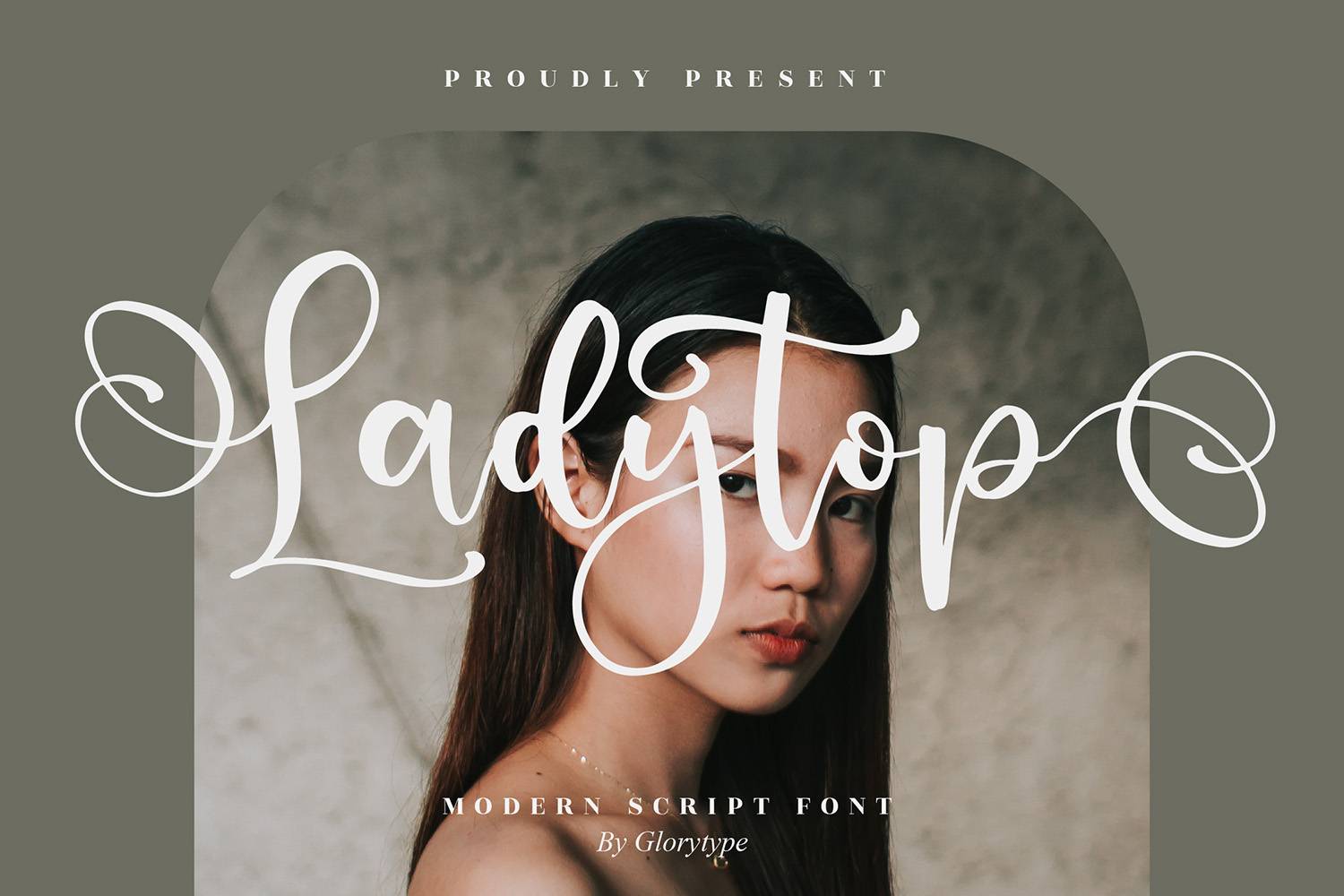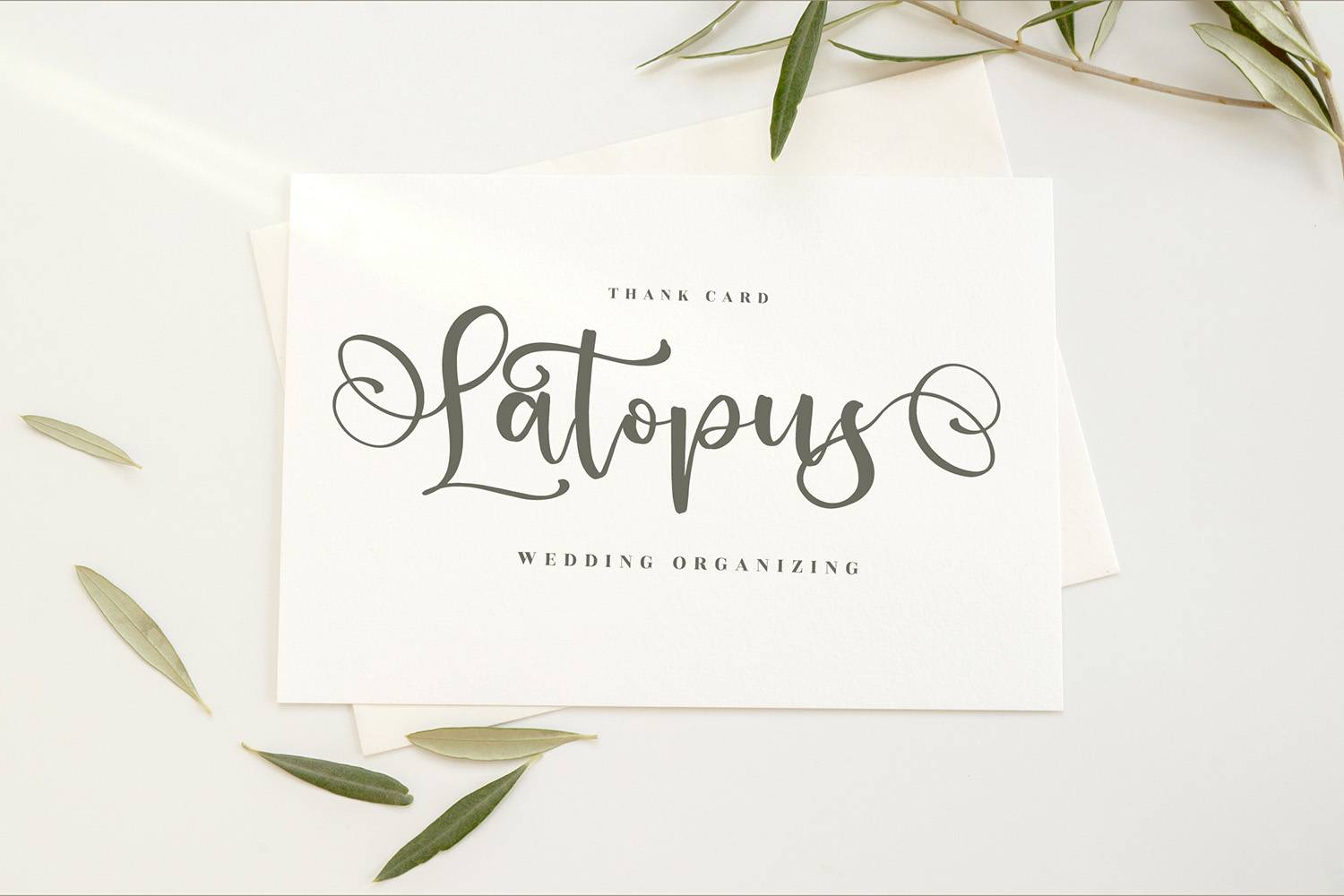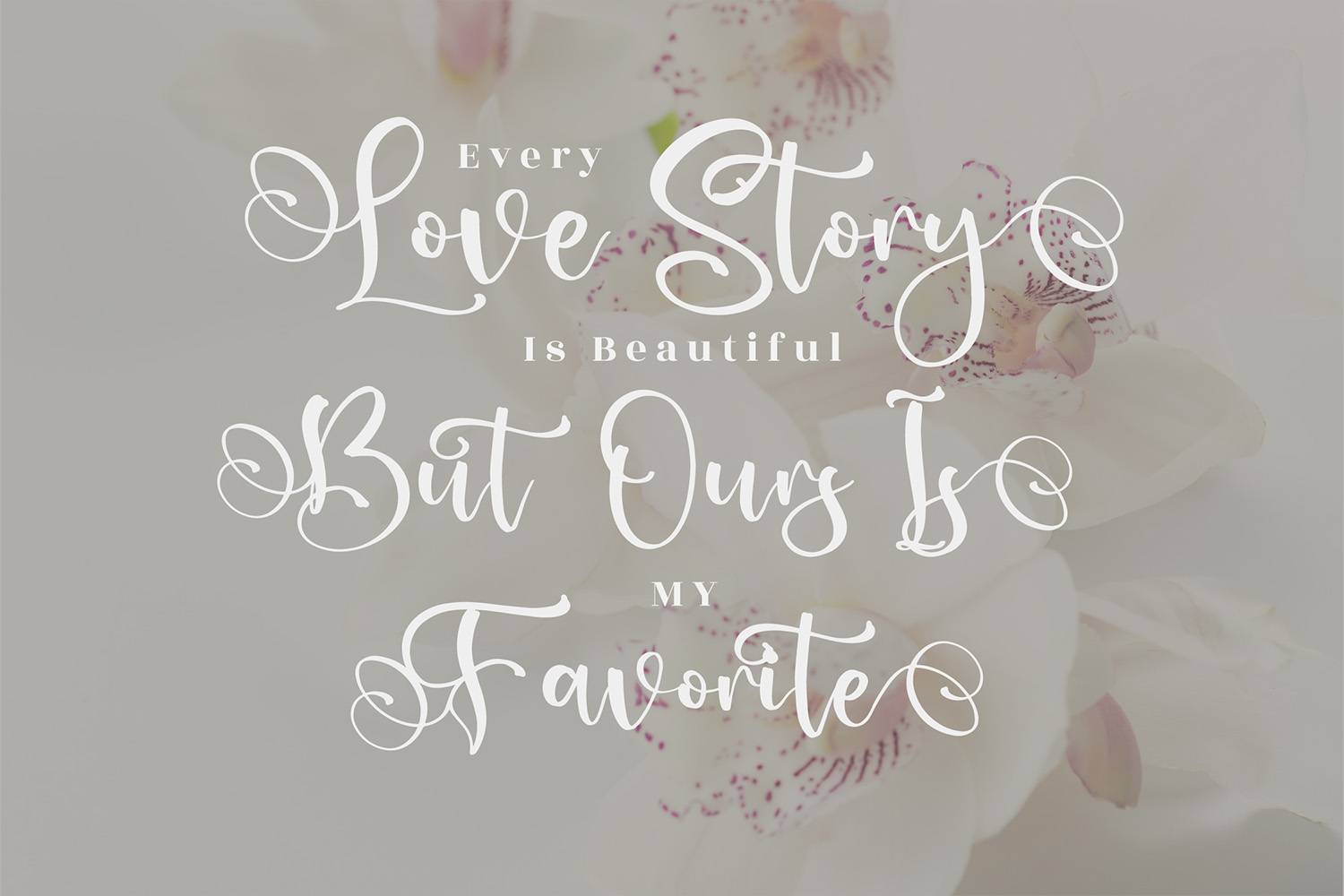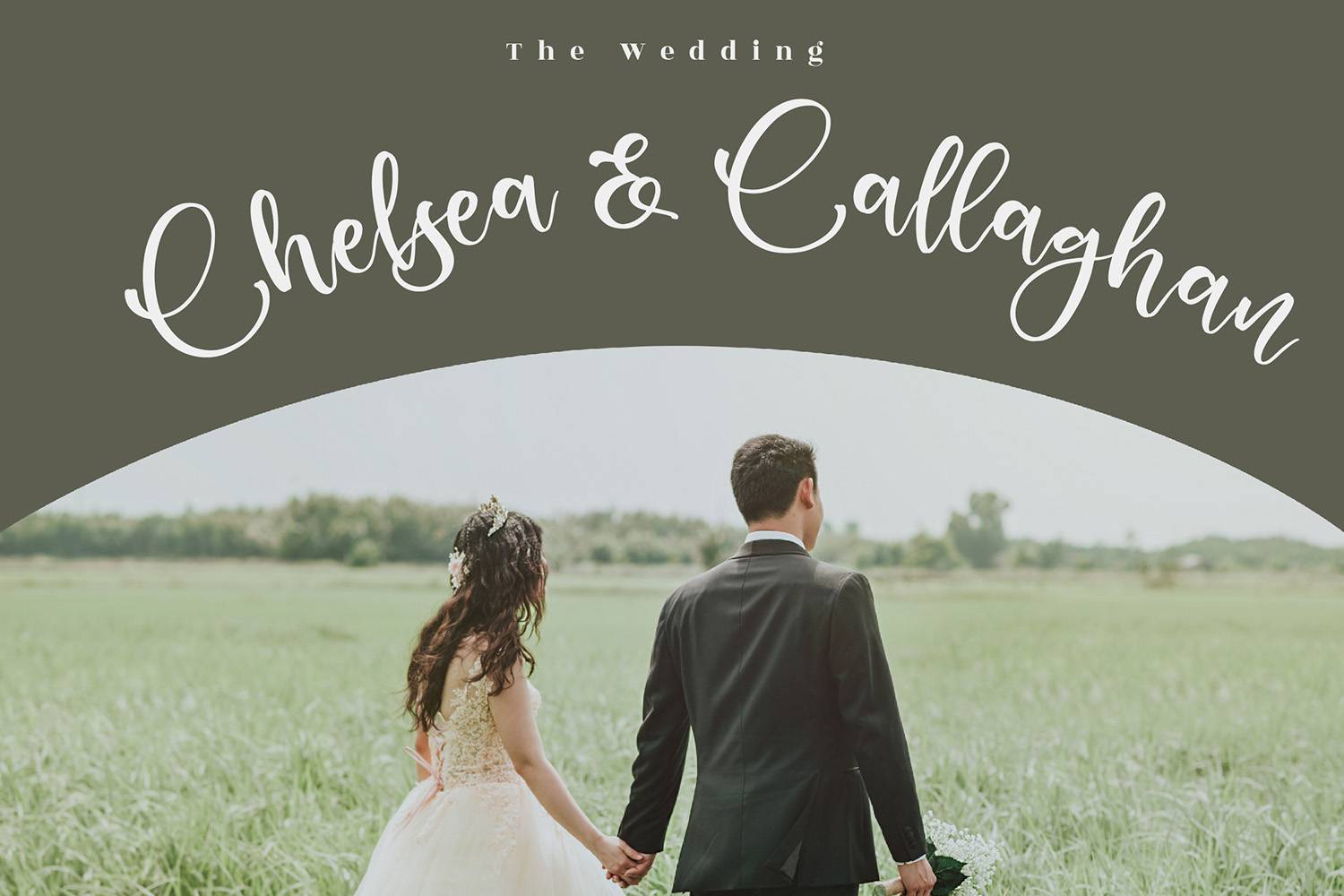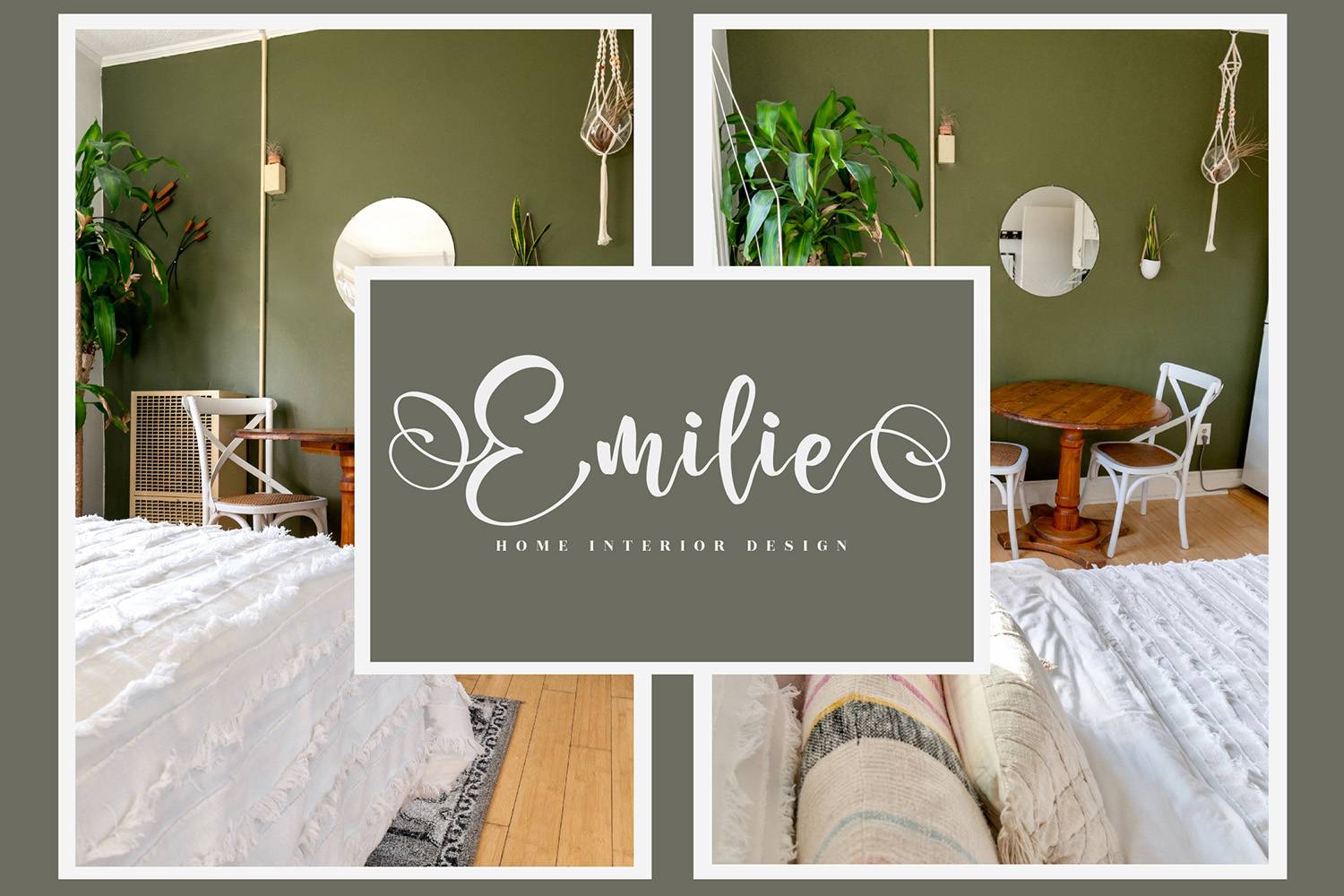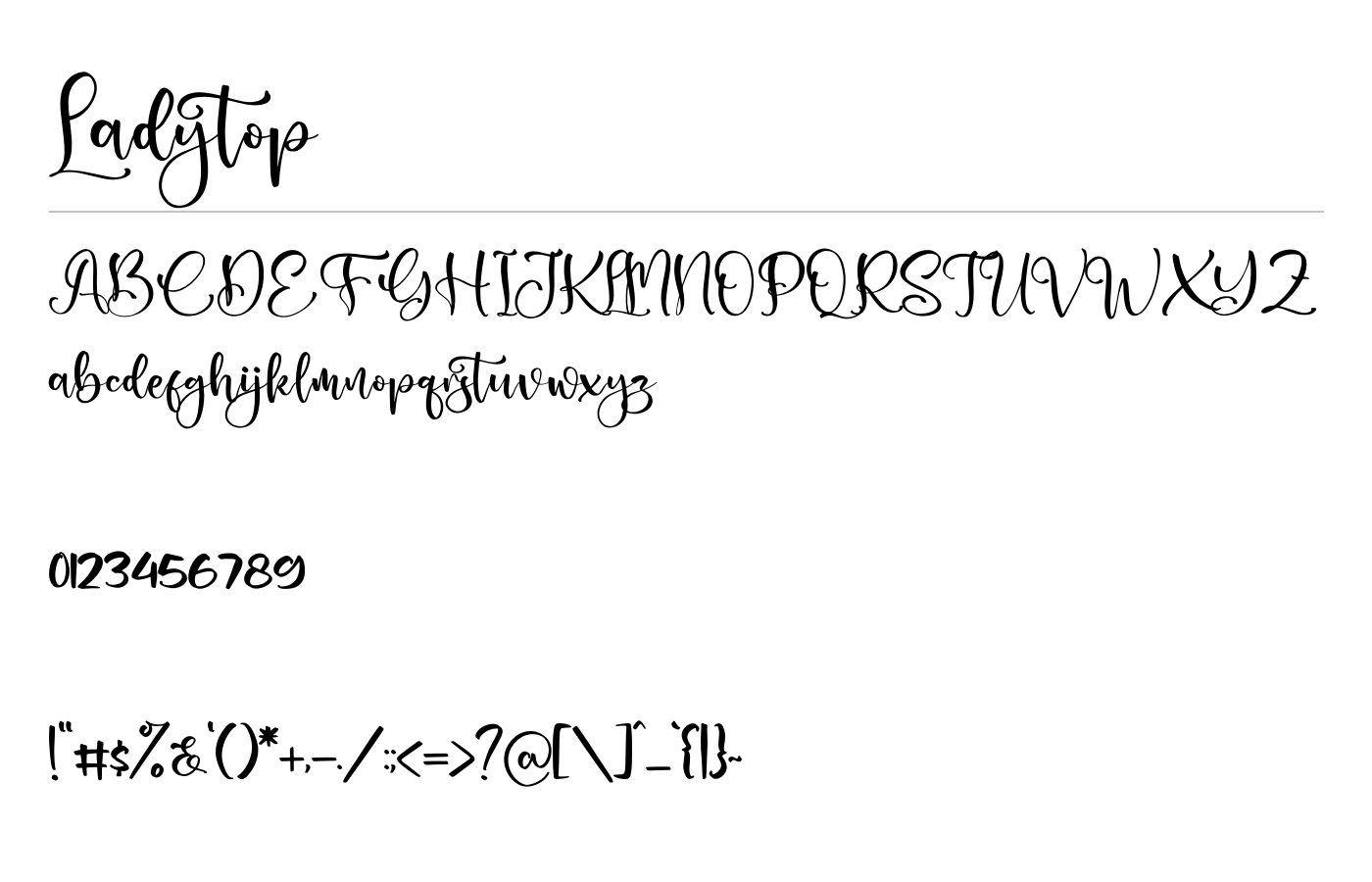
Ladytop is an elegant script font featuring flowing, handwritten letterforms with graceful swashes and a moderate contrast in stroke weight. Its stylish, decorative uppercase and smooth, connected lowercase characters give it a sophisticated and feminine feel, perfect for branding, invitations, and creative projects that seek a charming and personalized touch. This font works well in headlines and logos where a warm, artistic flair is desired.
Ladytop Font
About Ladytop Font